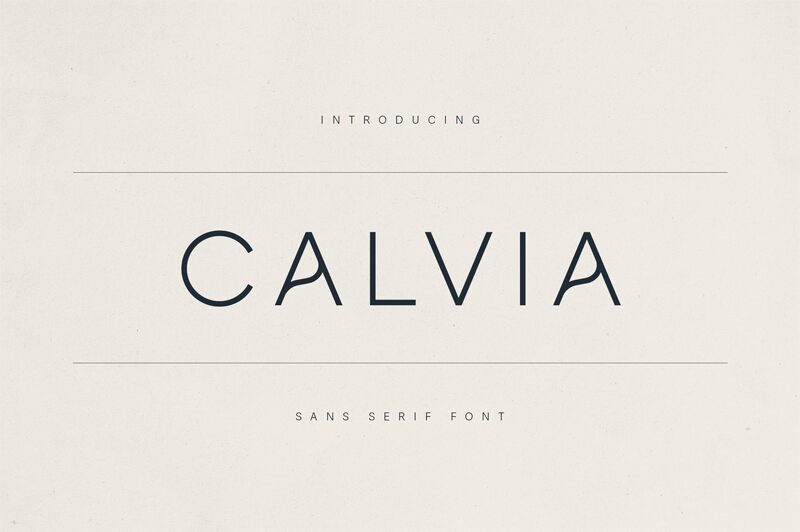
Calvia font by VPcreativeshop is a minimalist and clean sans serif design with a linear and geometric approach. Its modern and elegant structure makes it ideal for projects that require a refined and balanced tone. This free typeface is distinguished by a contemporary style that instantly transforms the visual appeal of any project and takes it to a new level. The visual impact is not only convincing but also elegant.
This font is a great choice for headlines, posters, advertising, retail, branding, social media pages, blogs, and much more. Books (print or electronic), film and podcast covers, applications, websites, prints, and packaging can also grasp its magic.